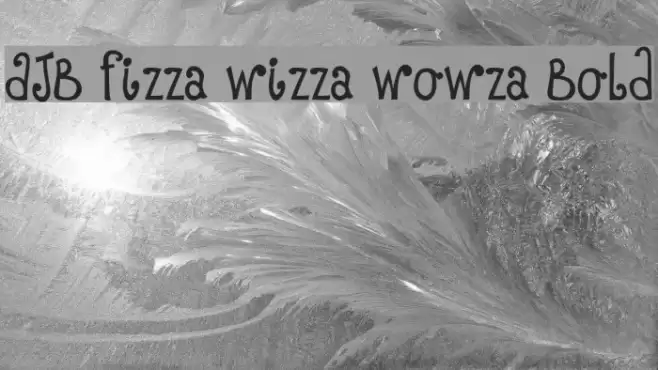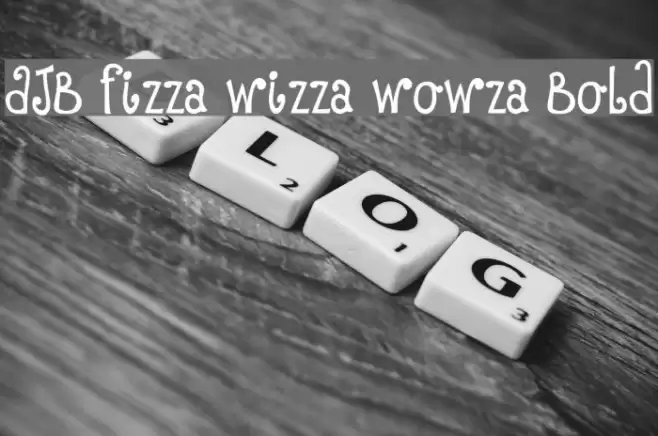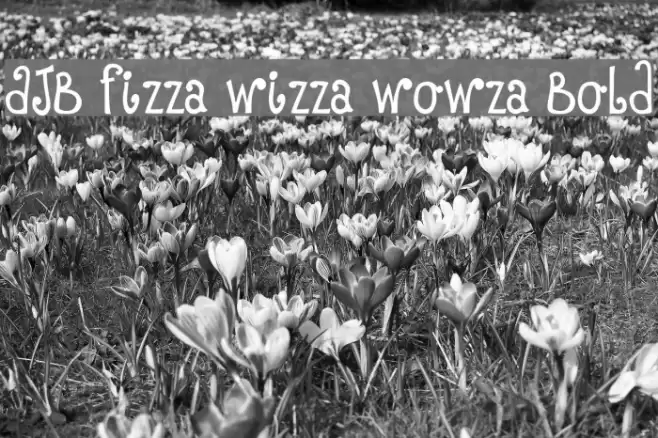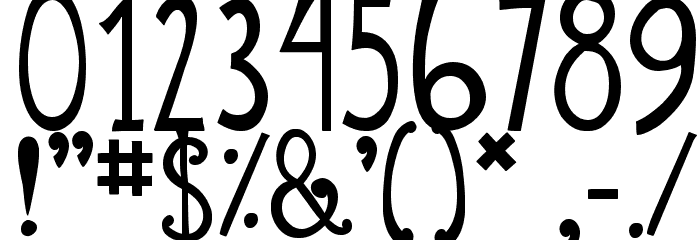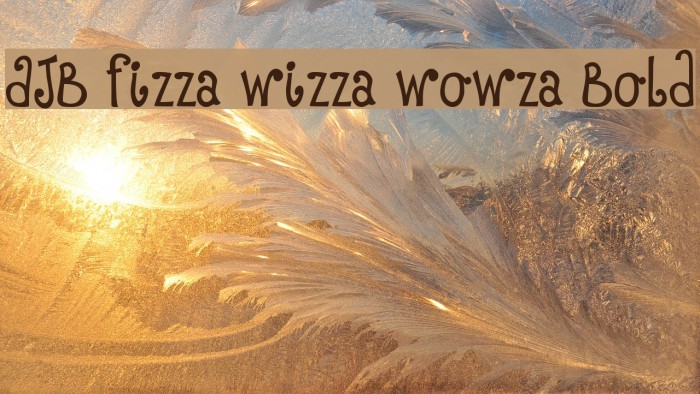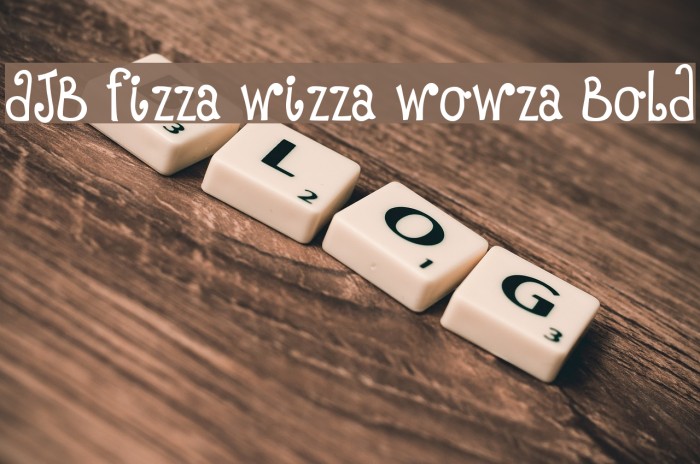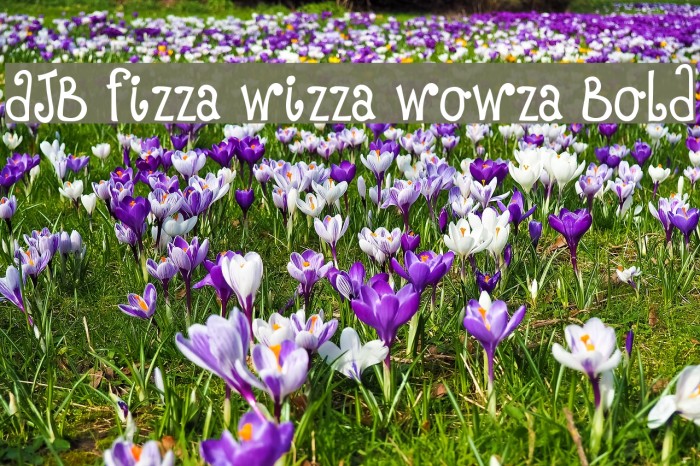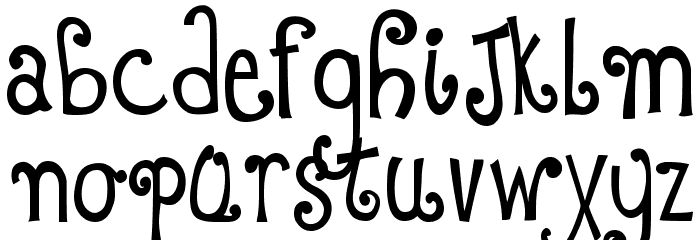
DJB Fizza Wizza Wowza Bold Font
DJB Fizza Wizza Wowza Bold Description
This playful and whimsical font features a unique blend of curvy and quirky letterforms, creating a lively and energetic appearance. Each character is designed with a sense of fun, incorporating unexpected twists and turns that add a sense of movement and personality. The font's bold weight enhances its presence, making it stand out in any design. Its distinctive style is characterized by a mix of rounded and angular elements, giving it a dynamic and engaging look. The font's overall aesthetic is both modern and playful, making it suitable for a variety of creative projects.
A playful, bold font with quirky, curvy letterforms and a lively style from Curly fonts.
- Proposed Projects: Ideal for children's books, playful branding, party invitations, and creative posters.
- Overall Style: Playful, Modern